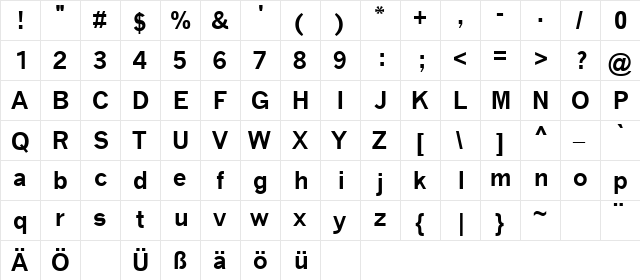
QuickType II Bold
| Foundry | Agfa Monotype Corporation |
Design Context for QuickType II Typeface
QuickType II takes a measured approach to typography — its balanced proportions and neutral character make it a reliable workhorse for both digital and print work. The heavy weight commands attention and anchors typographic hierarchies.
Pro Tip: Pair QuickType II with a font of contrasting weight or personality to build a more expressive typographic hierarchy.